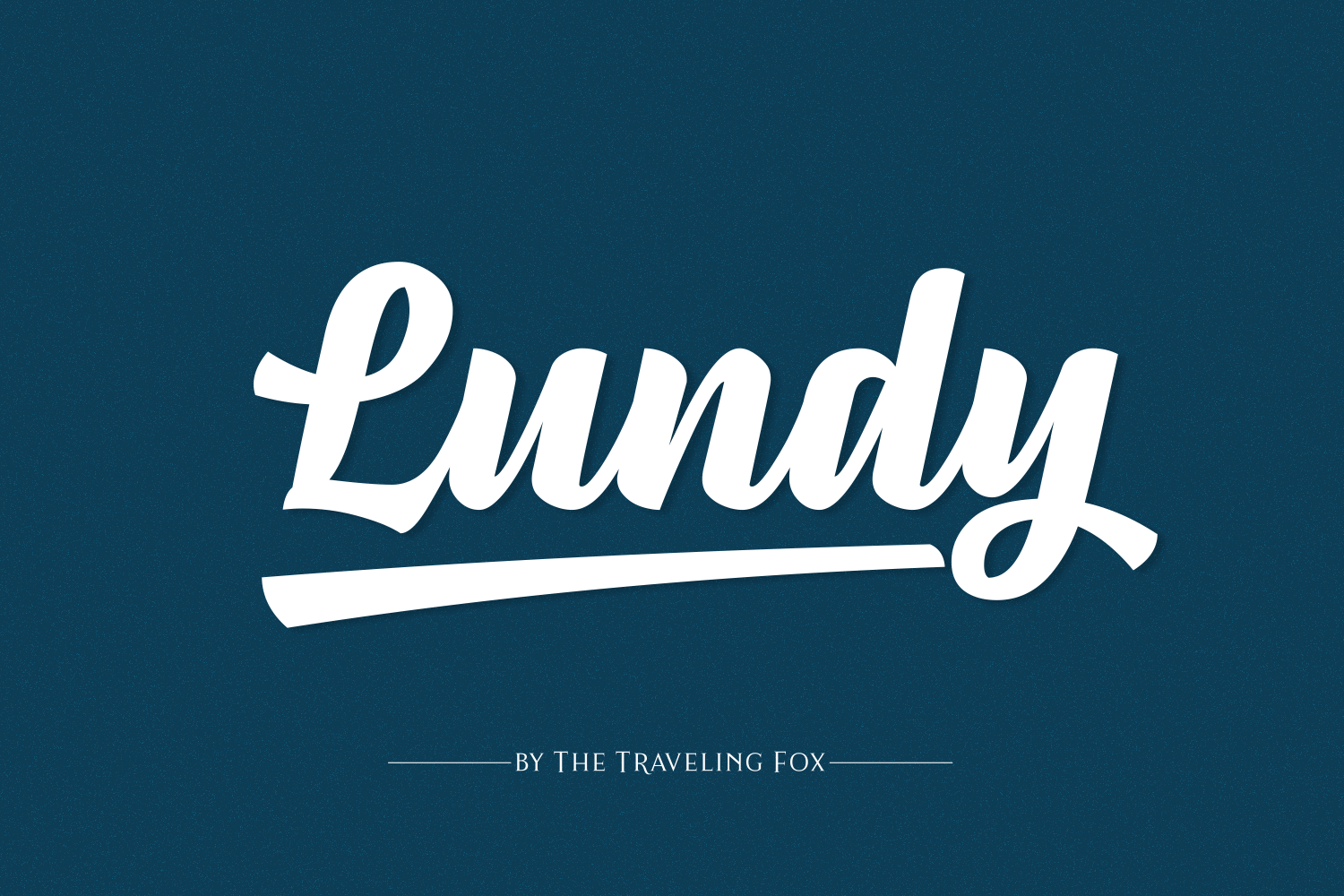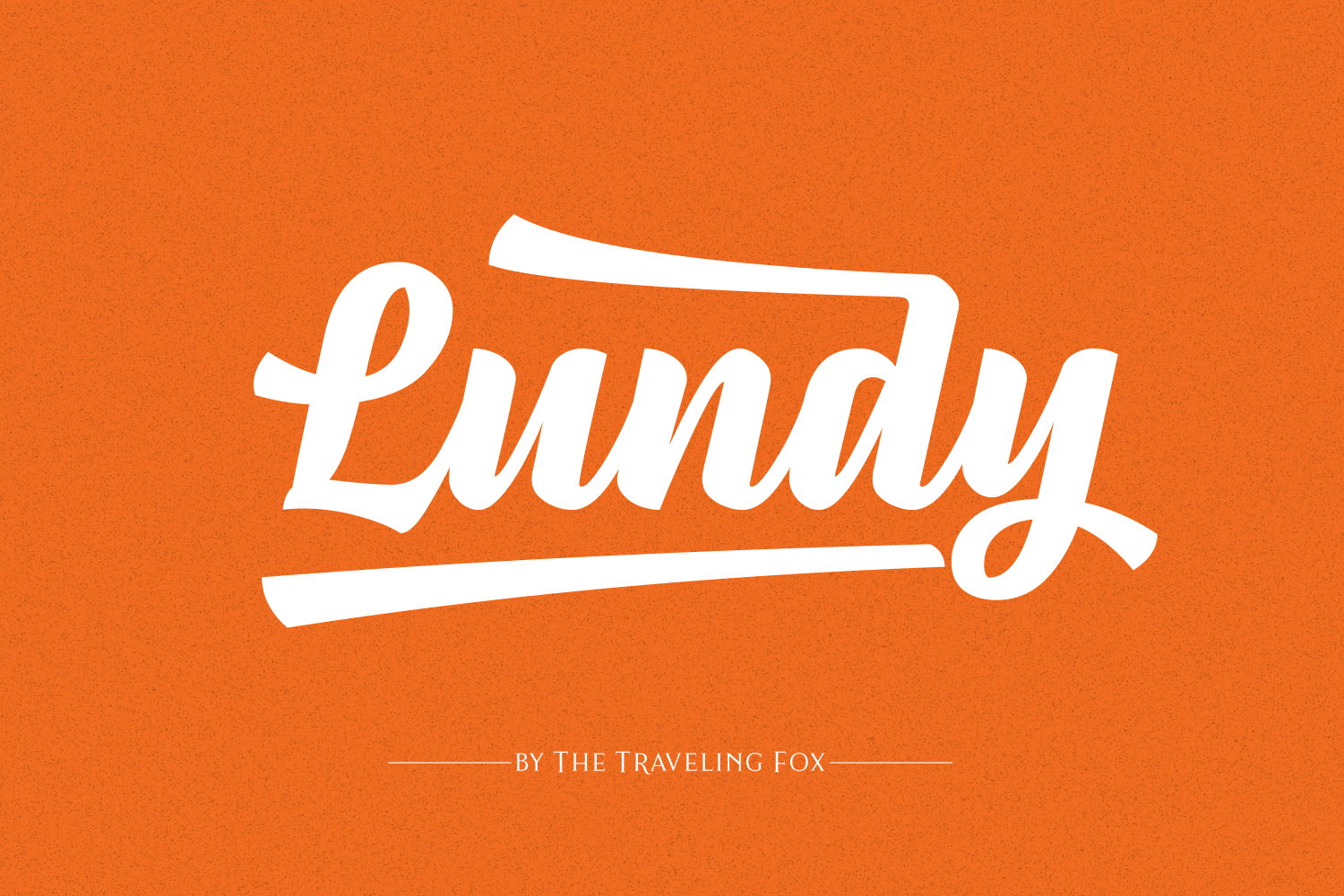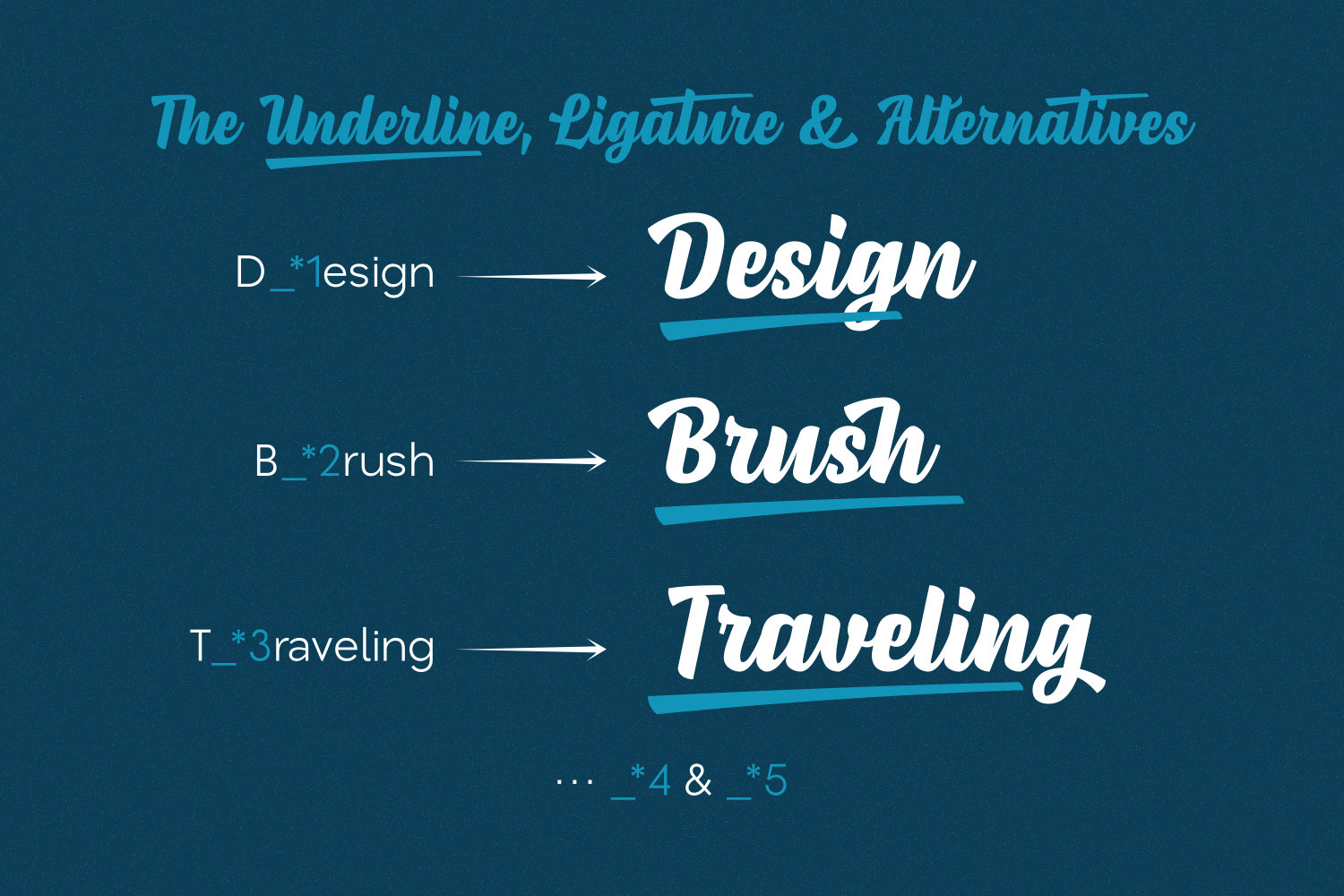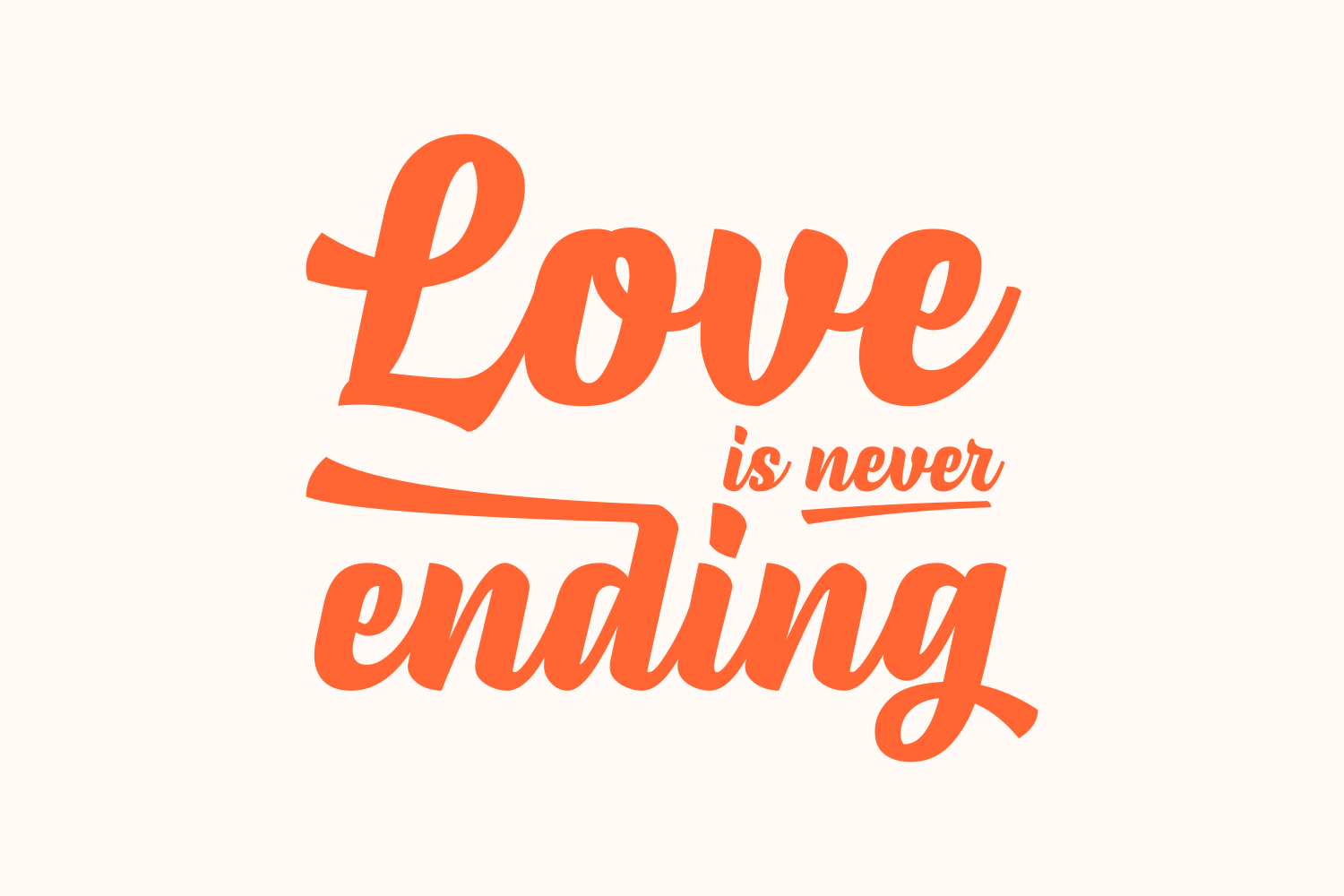
Lundy is a bold, versatile font. It’s expressive and great for branding, crafting, and much more. It is easy to read and works well for digital designs, print, and print & cut.
With its clean lines and strong personality, Lundy strikes a balance between playful and professional, making it suitable for logos, packaging, signage, and custom merchandise. Whether you're designing for a modern business or a creative project, Lundy brings clarity and character to every design. Add it to your font library for a reliable go-to option that always makes an impact.